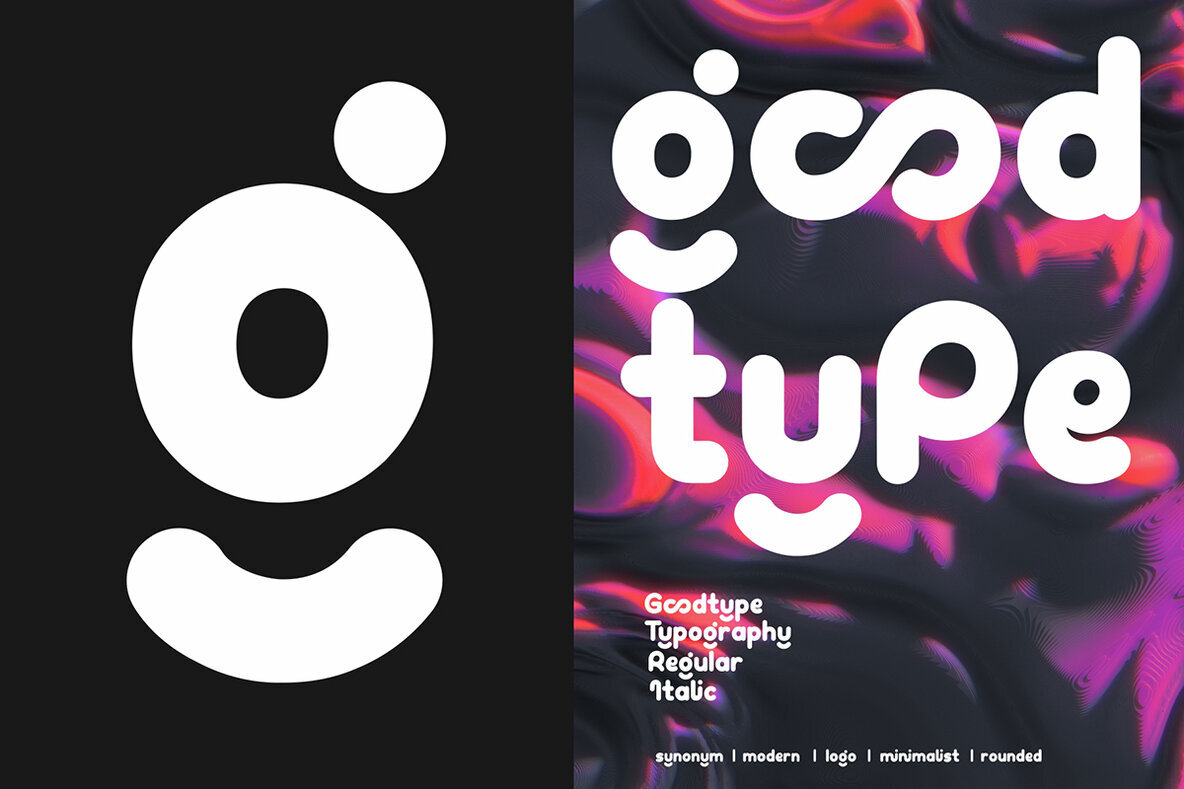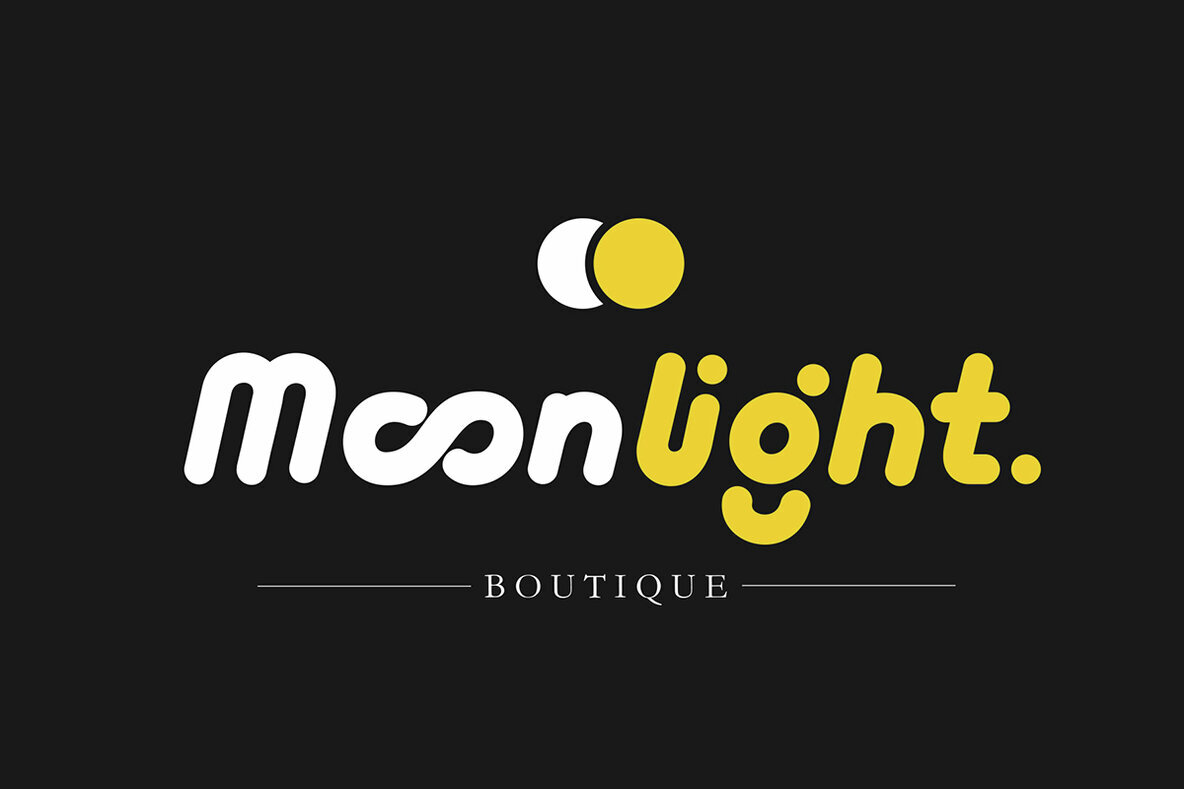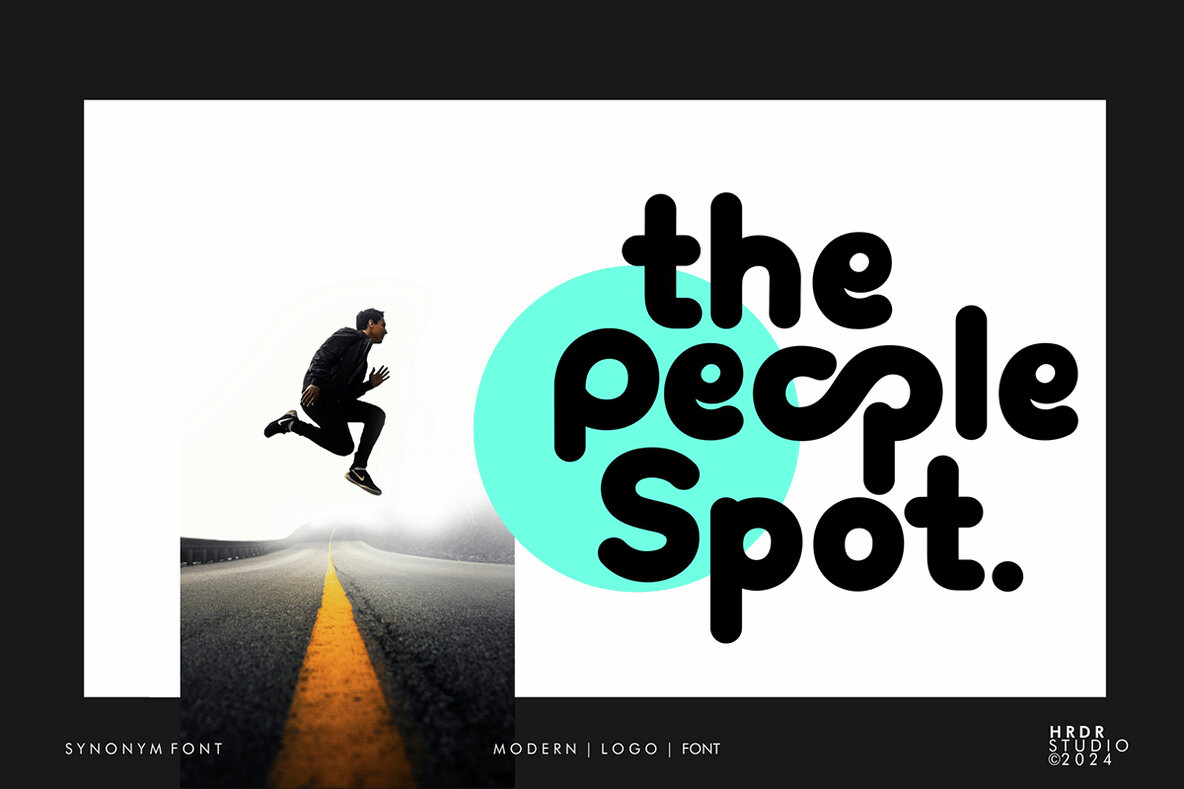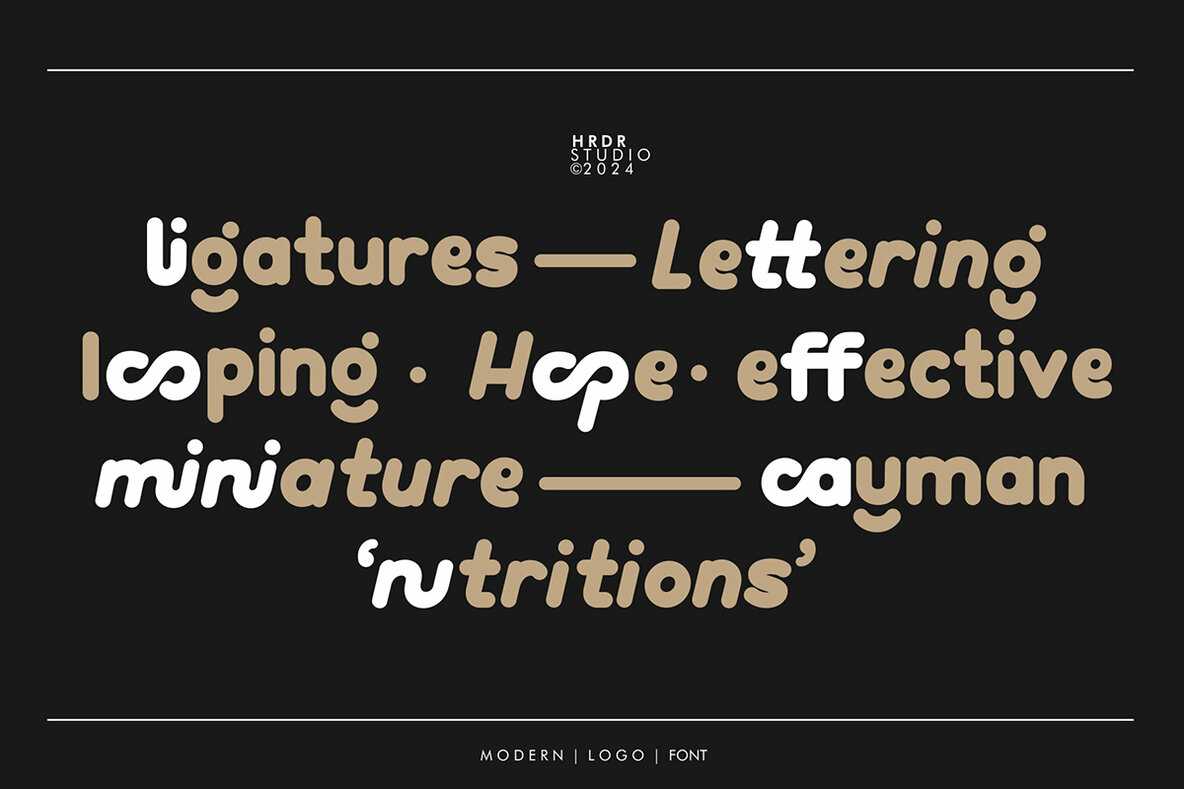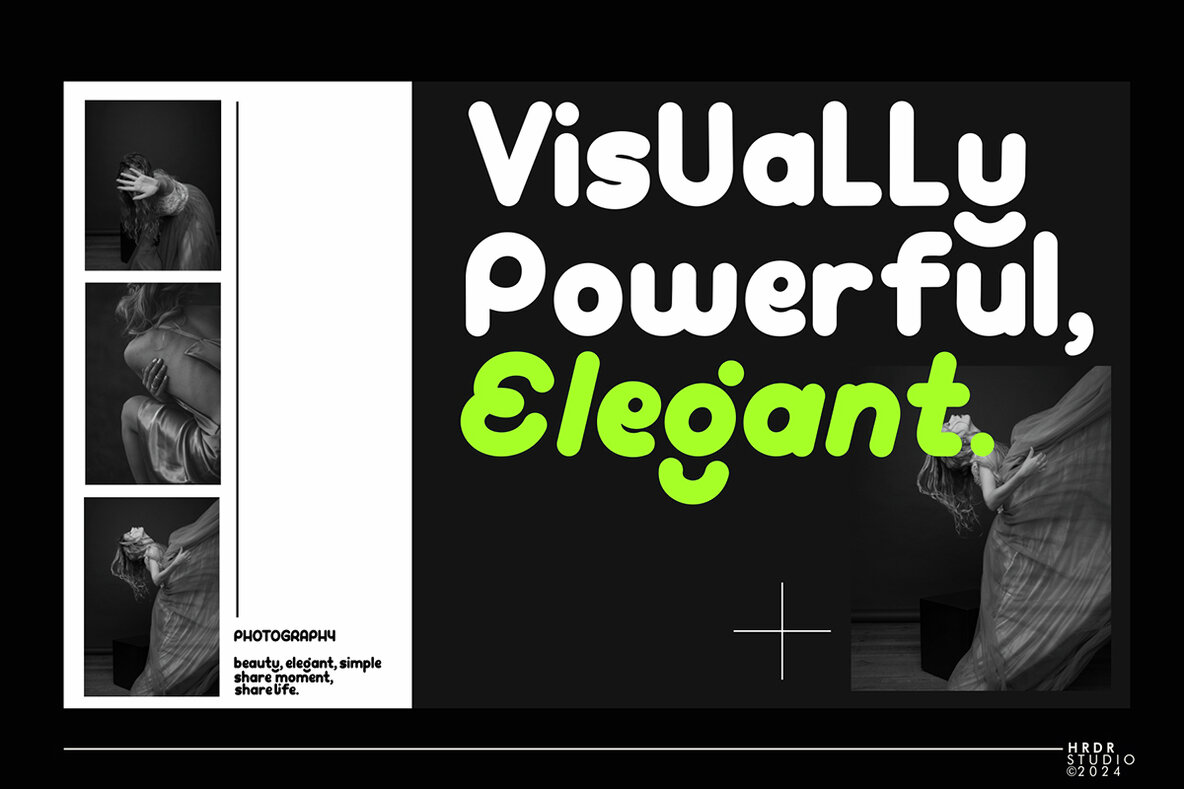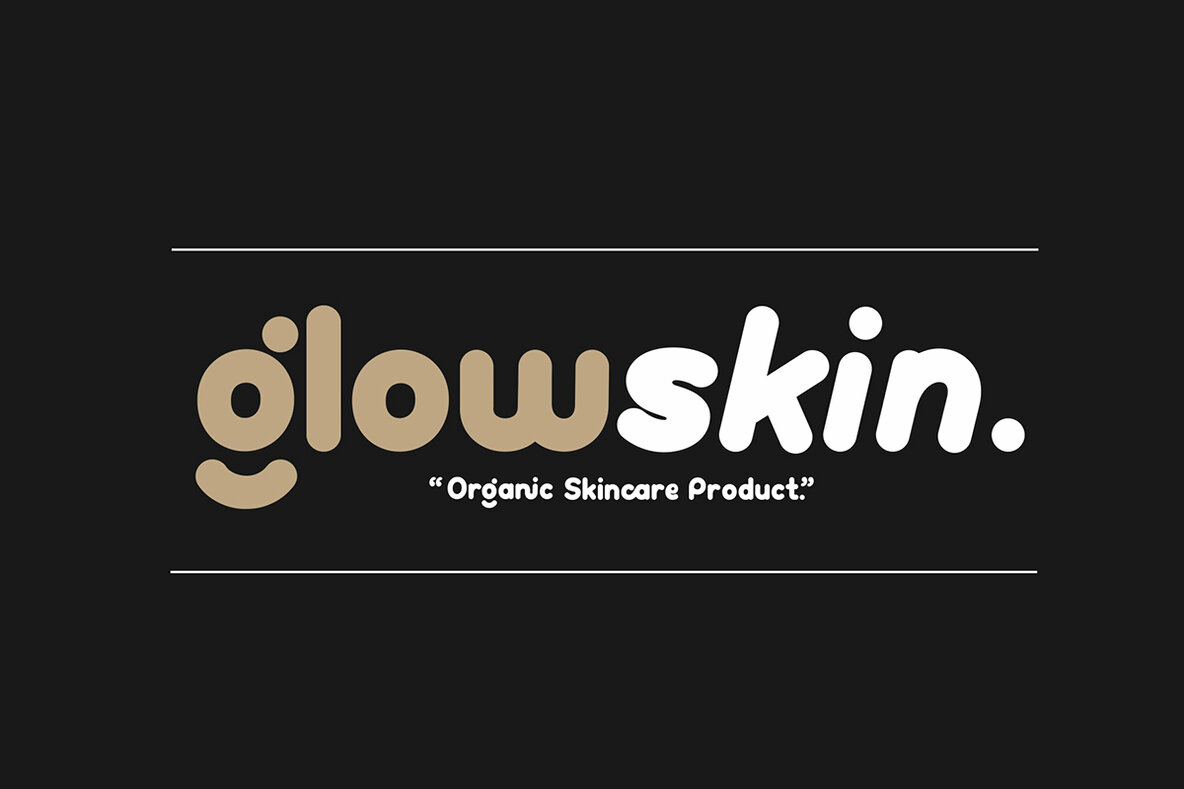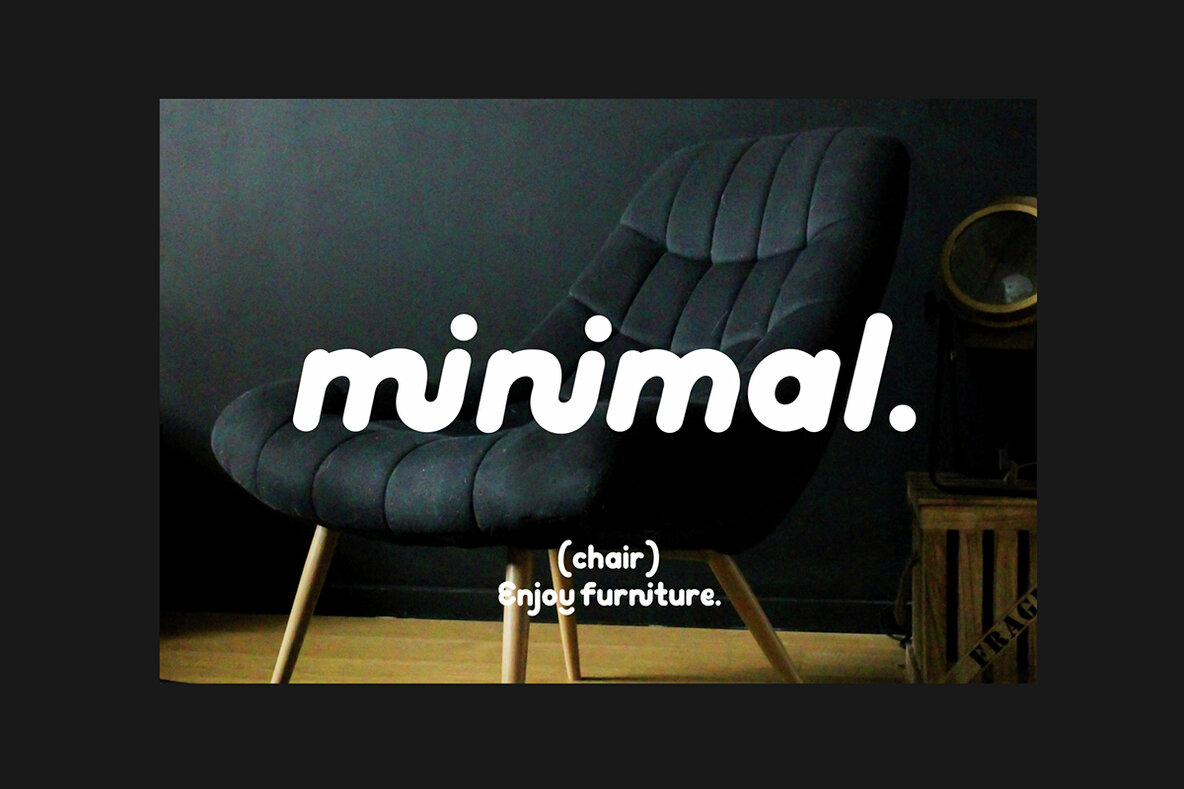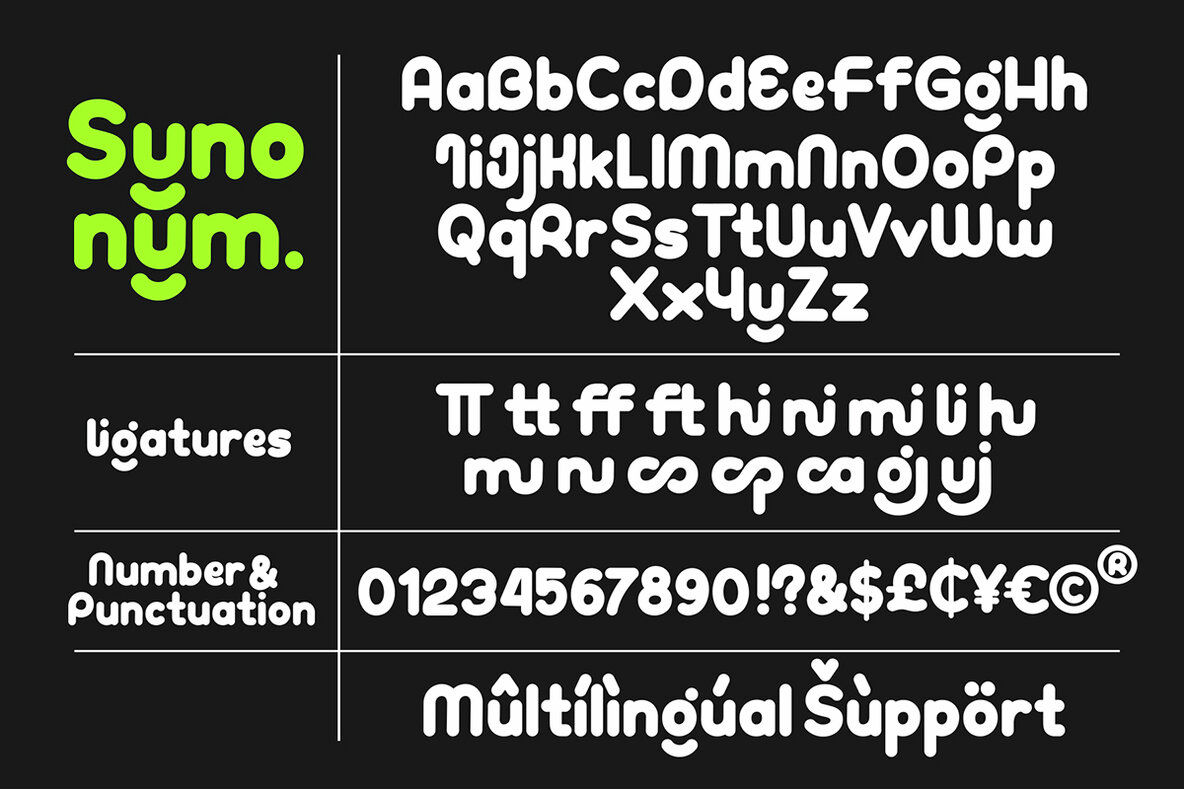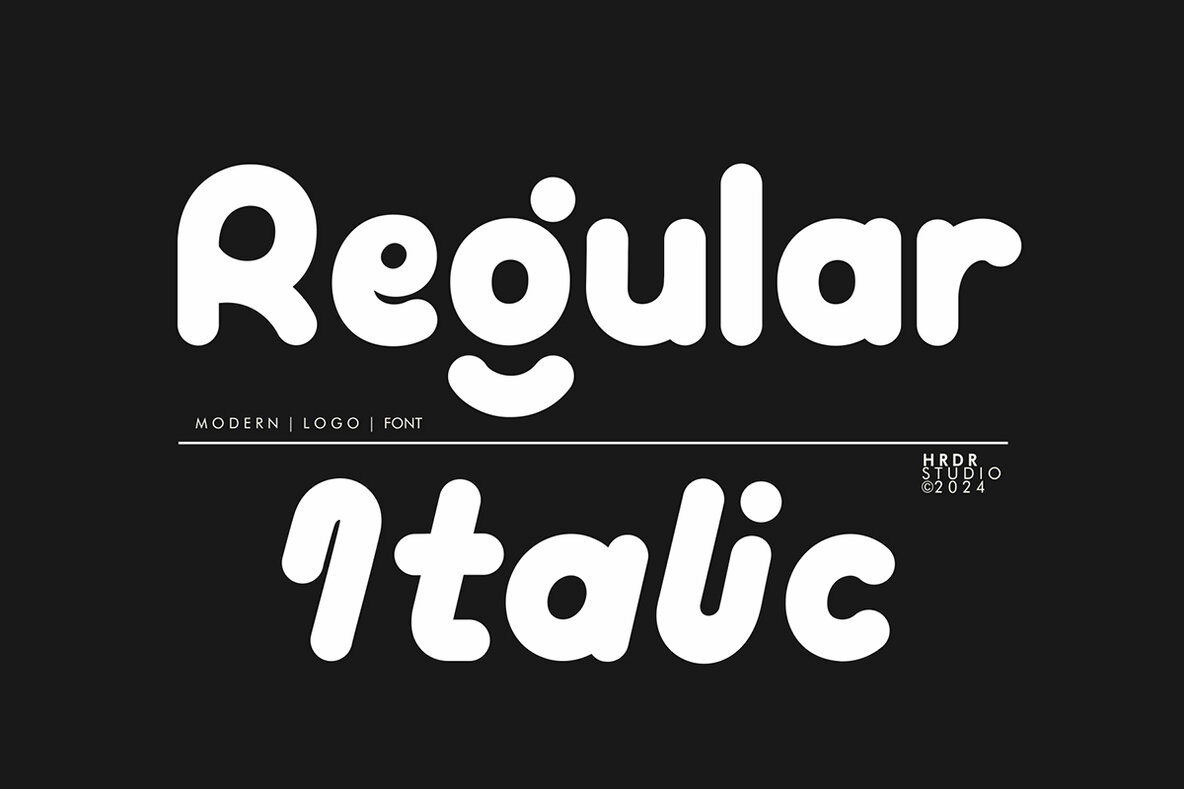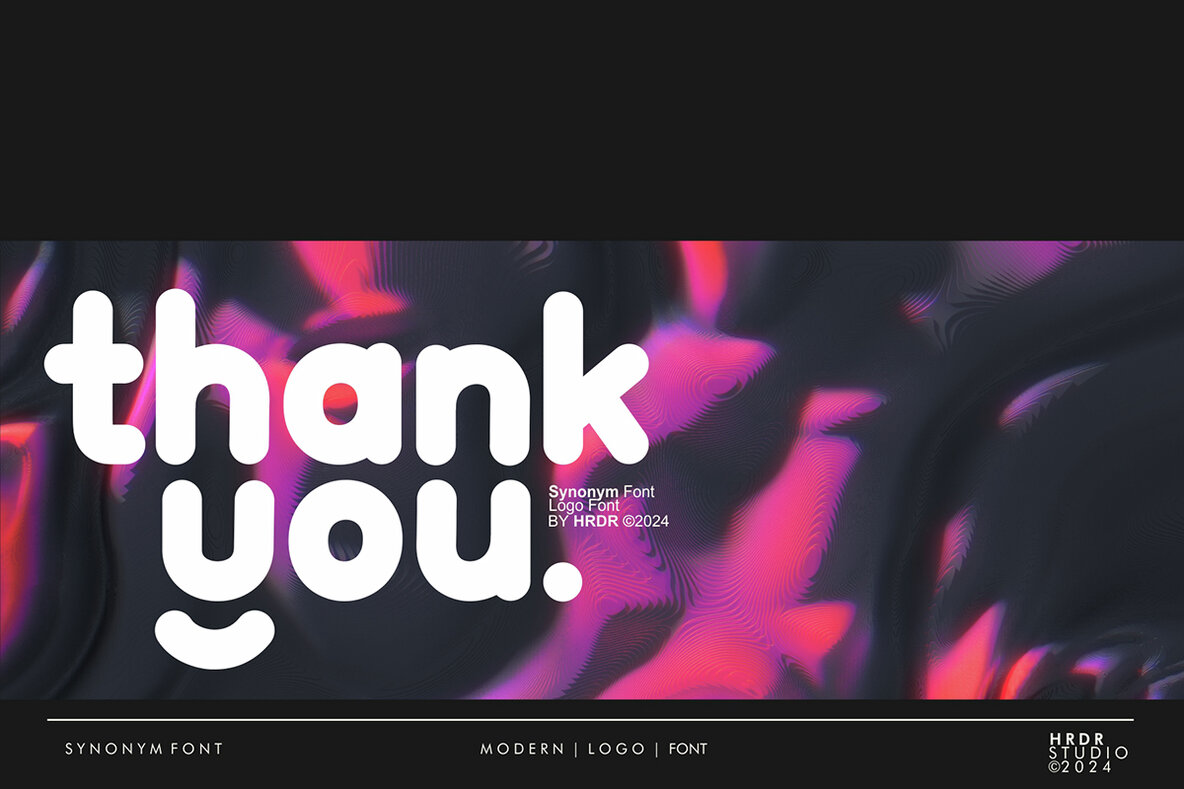
Synonym Font
Synonym is an eye-catching font tailored specifically for logo and branding projects. Each character is meticulously crafted to ensure a sleek and elegant appearance, making it an ideal choice for standout branding visuals. However, it is not designed for extensive text. Notable features include the distinctive lowercase 'g' and 'y', enhancing brand recognition and giving your projects a more personalized touch. The inclusion of ligatures also allows for unique customization, adding a subtle variance to your designs as needed.
This typeface is perfect for a variety of creative applications including logos, advertisements, stationery, and magazine displays. Its chic and sophisticated nature makes Synonym an excellent choice for lifestyle branding, invitations, corporate identities, and product design. Additionally, the font supports uppercase, lowercase, numeric, and multilingual characters, providing versatility for diverse branding needs. Synonym is well-suited for projects requiring an elegant and professional touch.